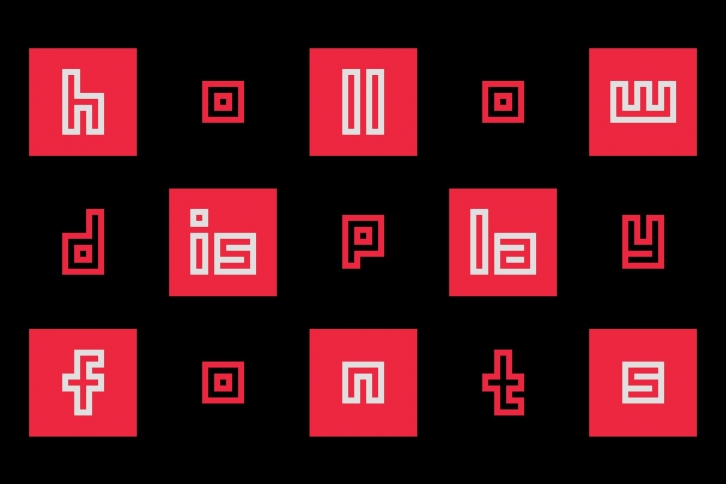
True Type Bitmap Display Font
- Pixel Font Hollowbit - 2 Styles
- Pixel perfect at 16px, 32, 48, 64, 80, 96, 112, 128, 144, 160, 176, 192, 208, 224, 240, 256...